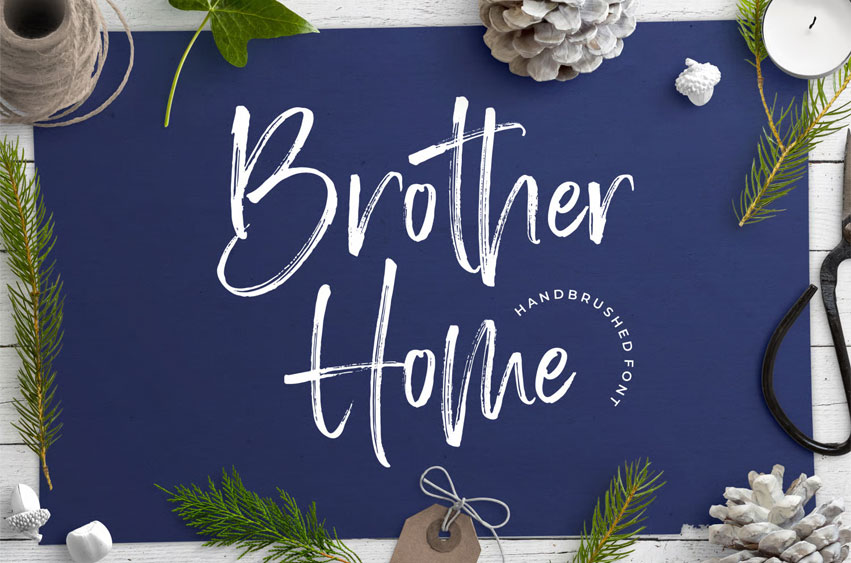
Brother Home Font
Brother Home Font that you were meant to find. A charming handwritten brush font that will bring your designs far more attractive.
Brother Home includes 2 fonts :
• Brother Home: The main font with Uppercase, Lowercase, Number, Punctuation, and also multilingual support.
• Brother Home Alt: Besides you can access alternative characters from the main font through the opentype feature, you can also install this alternative fonts. Brother Home alt font will give you other options for a character, which of course will add a natural impression.